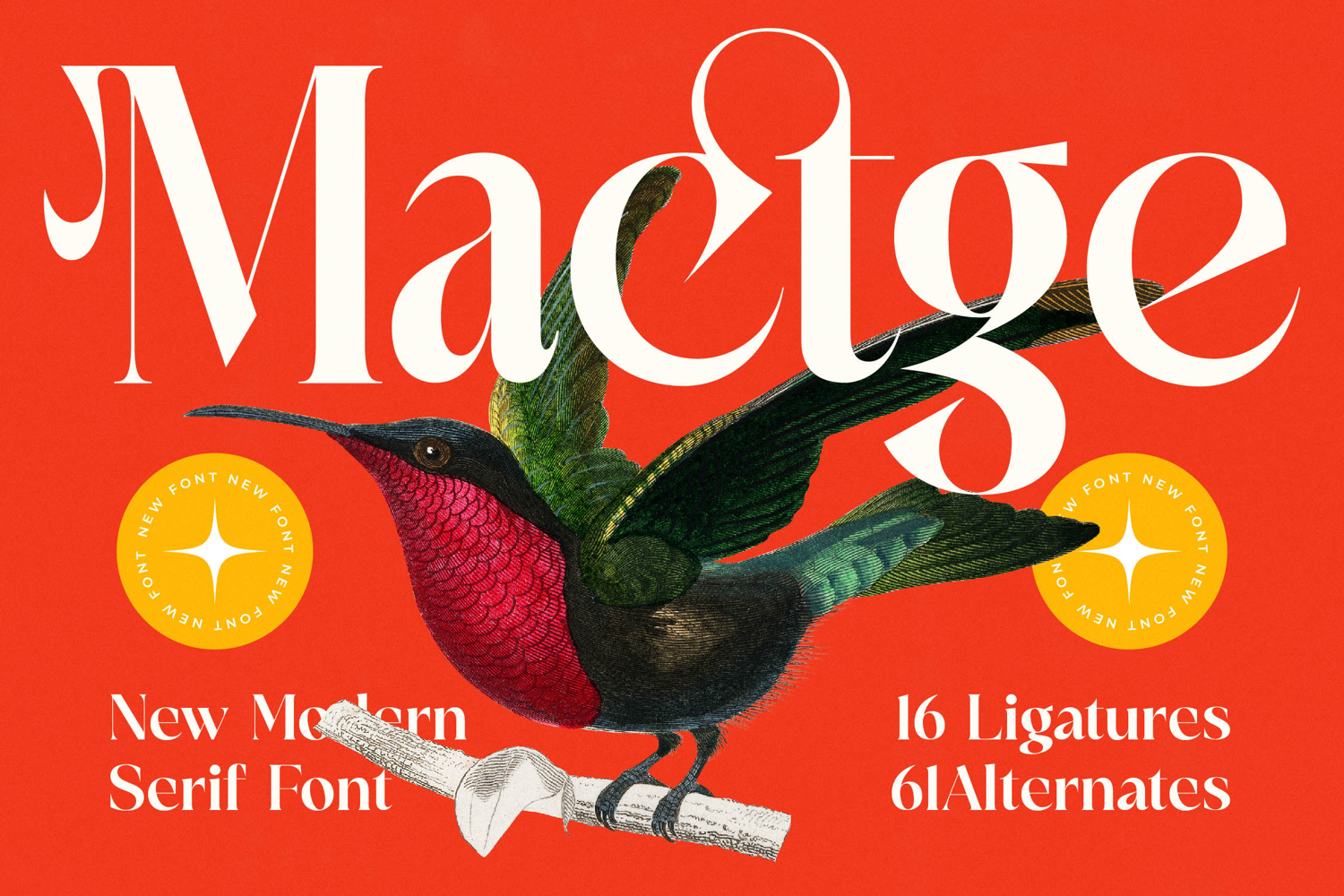
Mactge - New Modern Serif Font
Elevate your design projects with Font Mactge - New Modern Serif Font Serif Display, a captivating typeface that flawlessly merges classic elegance with modern sophistication. Its distinctively high-contrast strokes and exquisitely crafted serifs create an immediate visual impact, establishing a luxurious and refined aesthetic perfect for making a memorable statement. This display font exudes a timeless charm with a fresh, contemporary twist.
Unlock unparalleled creative freedom with Font Mactge - New Modern Serif Font Serif Display. Boasting an impressive collection of 16 Ligatures and 61 Alternates, this font provides boundless design possibilities. Designers can easily craft truly bespoke typographic solutions, from unique logotypes to distinctive headlines, adding unparalleled personality and flair to every creative endeavor, ensuring truly unique results.
Designed for a truly global audience, Font Mactge - New Modern Serif Font Serif Display ensures worldwide appeal and comprehensive adaptability. With its extensive multilingual support, Font Mactge - New Modern Serif Font Serif Display adapts seamlessly across global markets, making it incredibly versatile for international projects. This commitment to global compatibility significantly enhances its value for any discerning creative professional.
Perfectly suited for making an indelible impression, Font Mactge - New Modern Serif Font Serif Display is the ultimate choice for luxury branding, high-end packaging, and sophisticated editorial design. Its refined elegance makes it ideal for fashion magazines, upscale invitations, striking headlines, and any project demanding a truly impactful and exceptionally stylish visual presence.